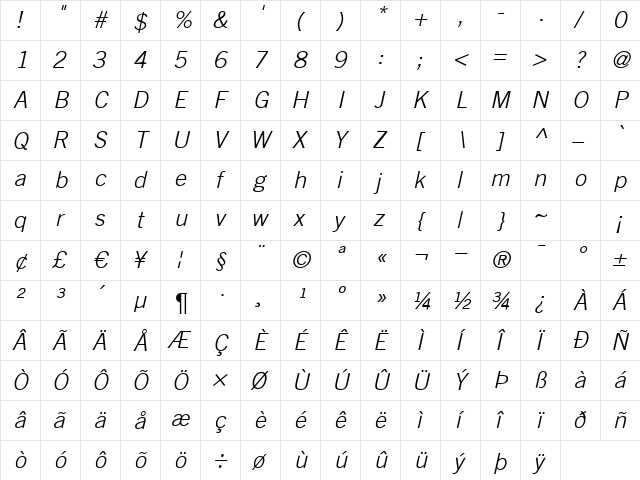
TransferGothic-Light Italic
Design Context for TransferGothic-Light Typeface
TransferGothic-Light has the quiet confidence of well-executed sans-serif typography: versatile, unobtrusive, and dependable at any size. The dynamic lean of this cut emphasises speed and emphasis in any layout. The delicate stroke weight brings airiness and refinement to layouts.
Ideal for fashion and beauty branding, minimal editorial layouts, and premium digital experiences.
Font Pairing: Pair TransferGothic-Light with a medium or bold serif for headlines — the weight contrast creates an elegant, high-end feel.
Pro Tip: Avoid using TransferGothic-Light at very small sizes where its slender strokes can disappear. It performs best at medium to large sizes.